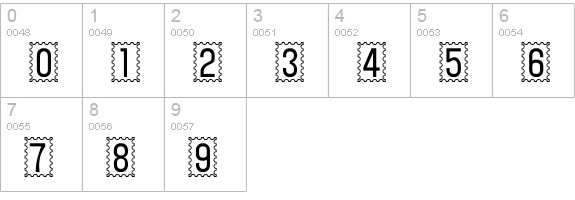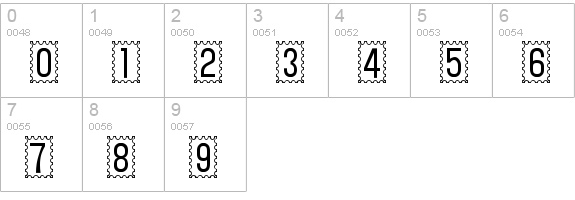
Stamper Font Details
Introducing Stamper font, a stunning display typeface that effortlessly captures the essence of vintage charm and timeless appeal. With its bold and rugged letterforms, Stamper font exudes a sense of strength and authenticity, making it the perfect choice for projects seeking to make a bold statement. The unique design of Stamper font draws inspiration from traditional rubber stamp impressions, lending a handmade touch to your designs. Each character is lovingly crafted with intricate details, resulting in a truly unique and eye-catching typography experience. The versatility of Stamper font allows it to be used in a wide range of design projects. Whether you're creating vintage-inspired logos, eye-catching posters, or stylish packaging, Stamper font will undoubtedly add a touch of character and personality to your work. And the best part? Stamper font is completely free! That's right, you can download this incredible font for free at FontsMarket.com. We believe that great design should be accessible to everyone, and with Stamper font, you can bring your creative visions to life without breaking the bank. So why wait? Download Stamper font today and unleash your creativity like never before. Whether you're a seasoned designer or just starting out, this free font is sure to become a valuable asset in your typographic toolkit. Embrace the vintage charm and timeless appeal of Stamper font and make your designs stand out from the crowd.